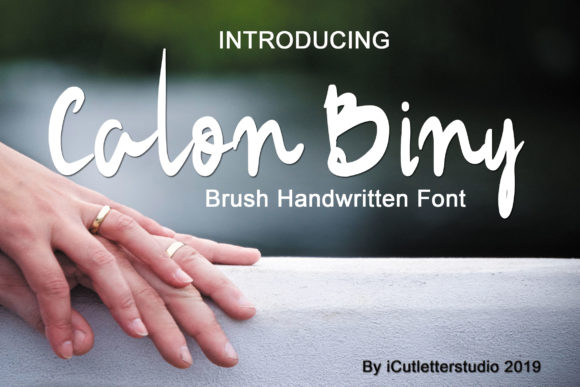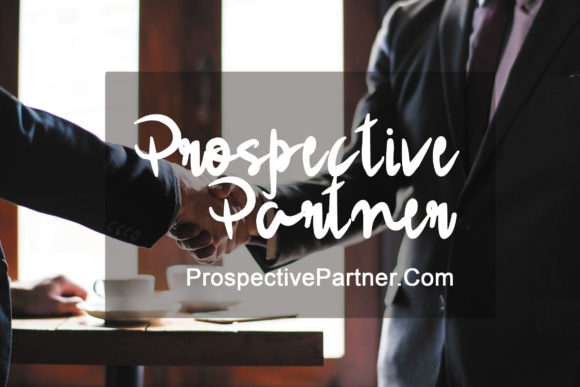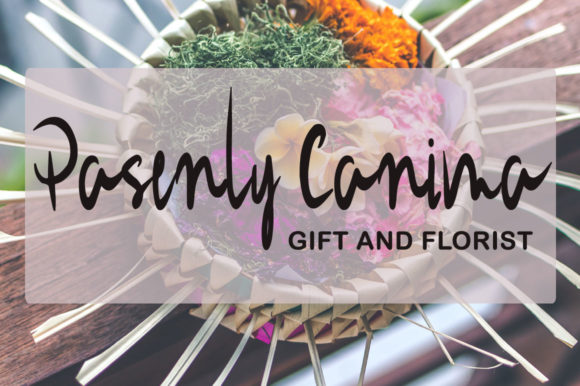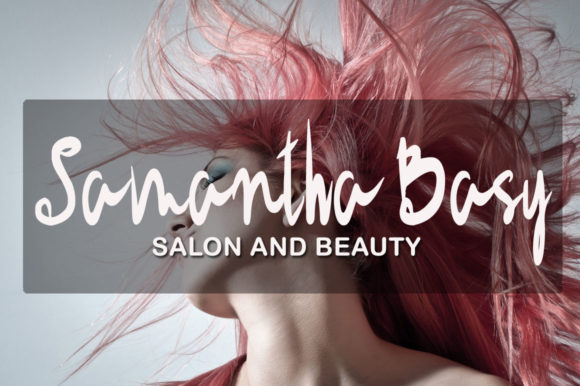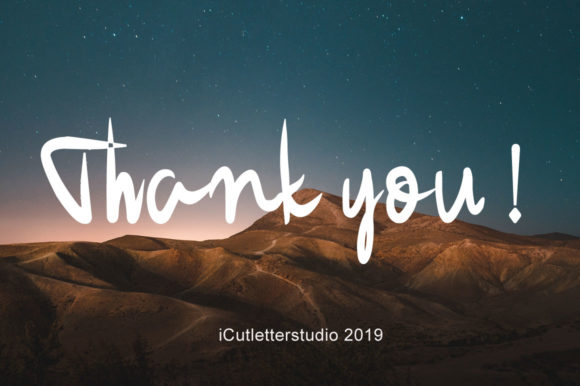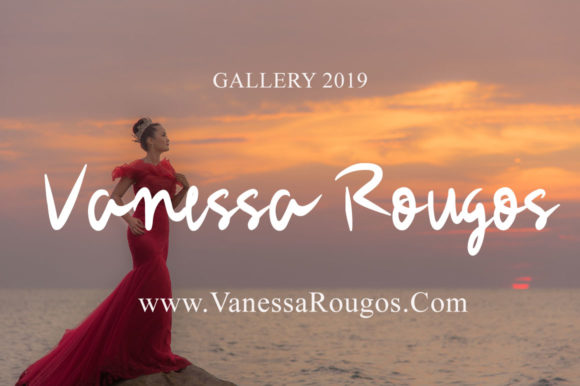
Calon Biny Font
About Calon Biny Font
The Calon Biny is a modern handwritten font. It has an elegant, yet striking look which can be used for a wide range of designs.
It’s perfect for signatures, logos, headers, blogs, posters, branding, letters, invitations, and much more!